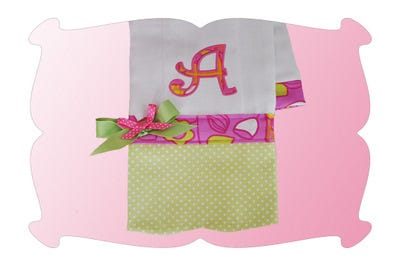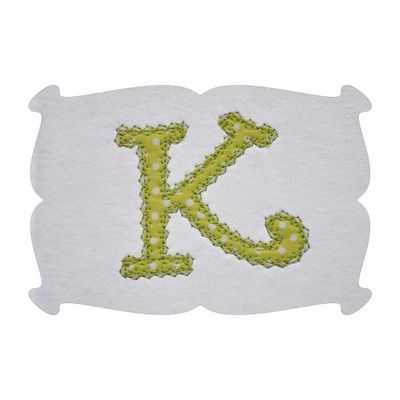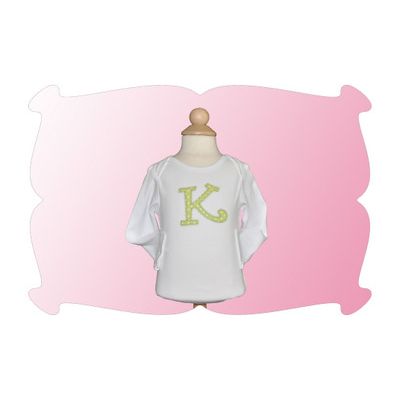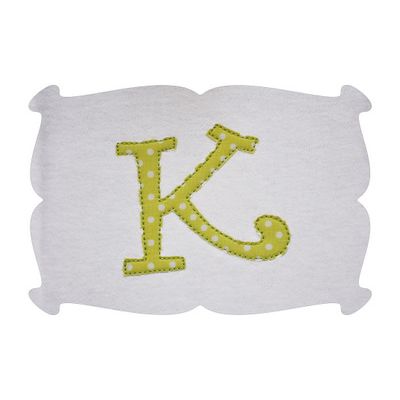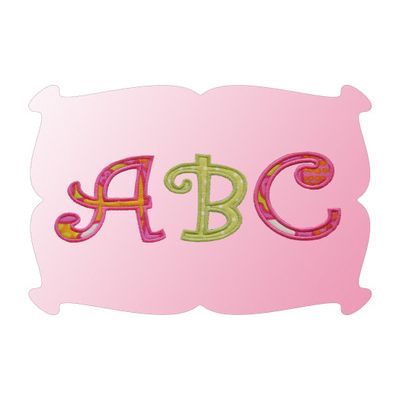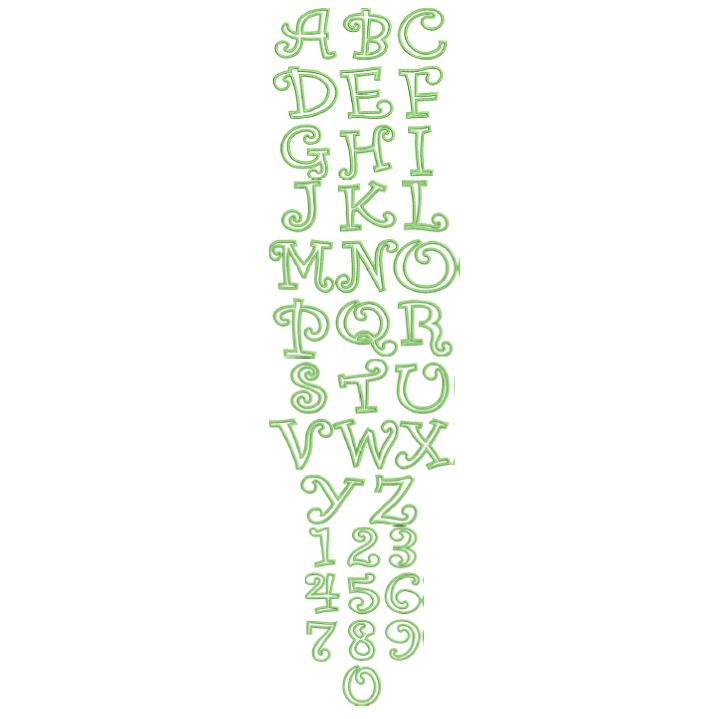
Shelley Curlz Applique Font
The Shelley Curlz font is named in honor of my very creative friend, Shelley, who has been asking me to digitize the #1 requested font for her embroidery business.
She says it's popular for both boys and girls.
It's a fun font for Oneises and t's.
And burp cloths too.
The close up photo shows the details of the decorative stitches stitches.
You can also use any design file and omit the final stitch to have a raw edge applique as shown above.
Also included are 3 types of finishing stitches: traditional satin stitch, zig zag stitch and a brand new decorative stitch.
Capital letters A thru Z, plus numbers 0-9.